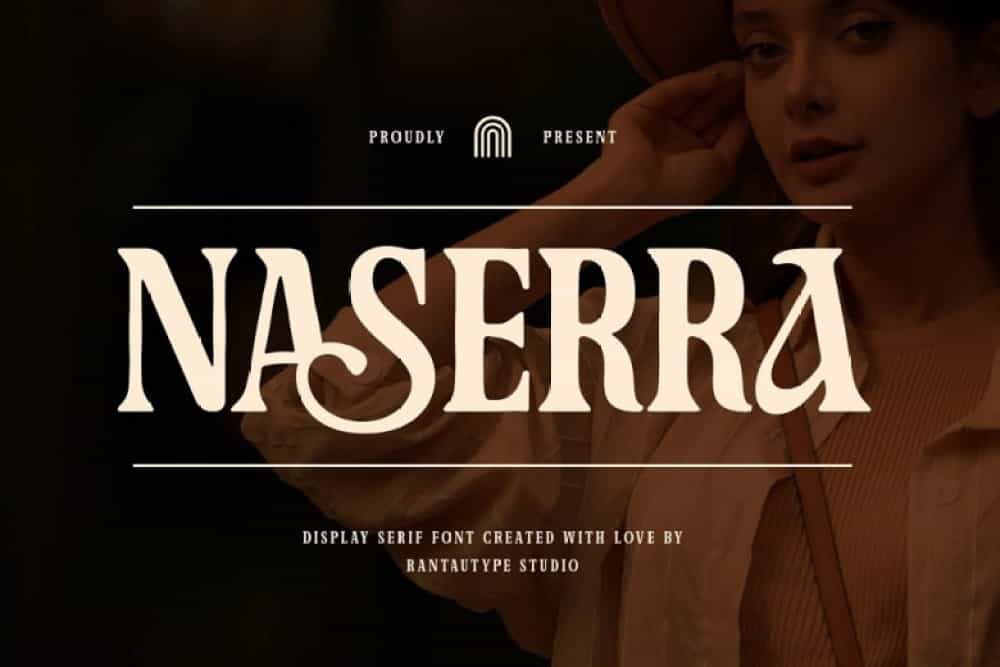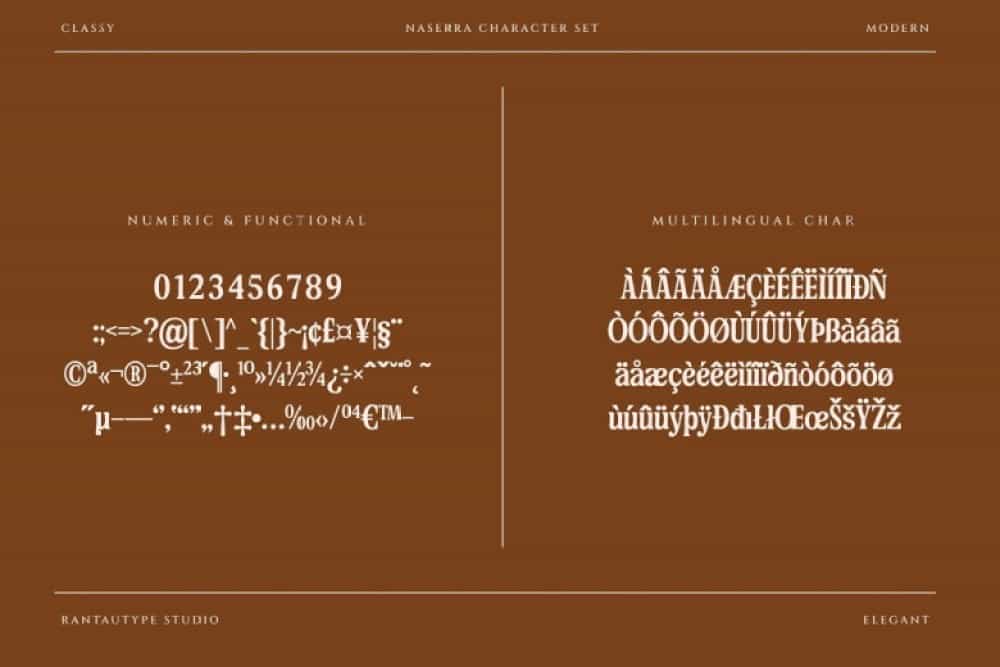
Naserra is a chunky serif texture font with a humanistic touch to it. Naserra in reguler and italic style is a good font to be used in any creative project, chic lifestyle design, for logo, ads, watermark on photos, letterheads, brand identity, display and magazine, invitations, corporate branding, products and labels, business proposals and many other projects.